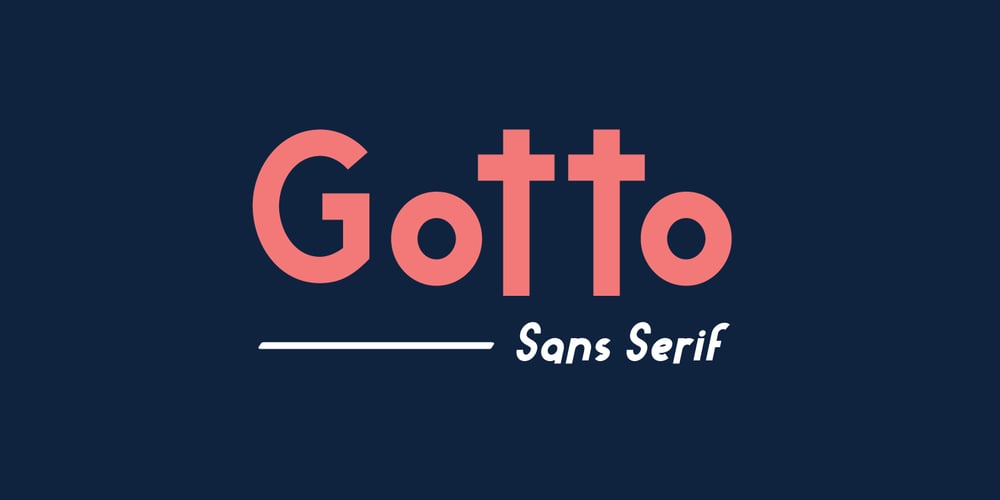
Gotto Font Family was designed by Fadli Ramadhan Iskandar and published by Attype Studio. Gotto contains 2 styles and family package options. Gotto, the playful Sans-serif font with an italic twist and multilingual support. Perfect for logos that want to stand out from the crowd. Let Gotto bring some fun and personality to your next design project!Features :- Gotto Family Font- Multilingual support, US Roman, Latin 1 Support —This Font Support Language:Afrikaans, Albanian,Asu, Basque, Bemba, Bena, Breton, Catalan, Chiga, Cornish, Danish, Dutch, English, Estonian, Faroese, Filipino, Finnish, French, Friulian, Galician, German, Gusii, Indonesian, Irish, Italian, Kabuverdianu, Kalenjin, Kinyarwanda, Luo, Luxembourgish, Luyia, Machame, Makhuwa-Meetto, Makonde, Malagasy, ManxMorisyen, North Ndebele, Norwegian Bokmål, Norwegian Nynorsk, Nyankole, Oromo, Portuguese, Quechua, Romansh, Rombo, Rundi, Rwa, Samburu, Sango, Sangu, Scottish Gaelic, Sena, Shambala, Shona, Soga, Somali, Spanish, Swahili, Swedish, Swiss German, Taita, Teso, Uzbek (Latin), Volapük, Vunjo, Zulu,Thank you for purchasing premium fonts from Attype Studio. Follow and explore our work on Pinterest & Instagram. If you have any question, don’t hesitate to contact us.Hope you enjoy with our font!Attype Studio